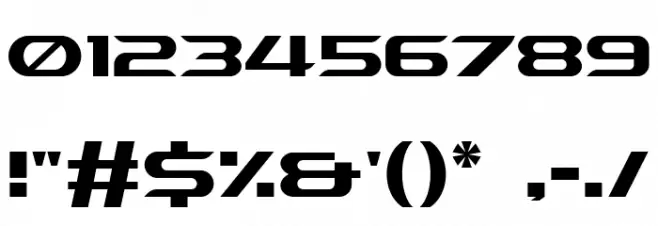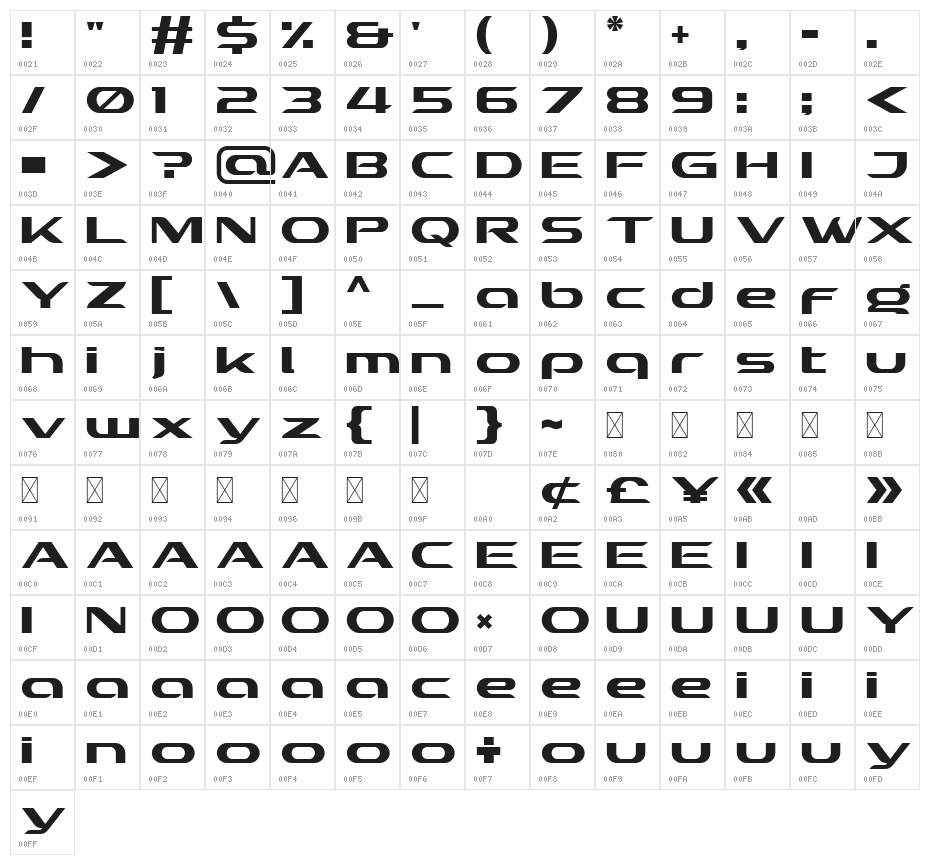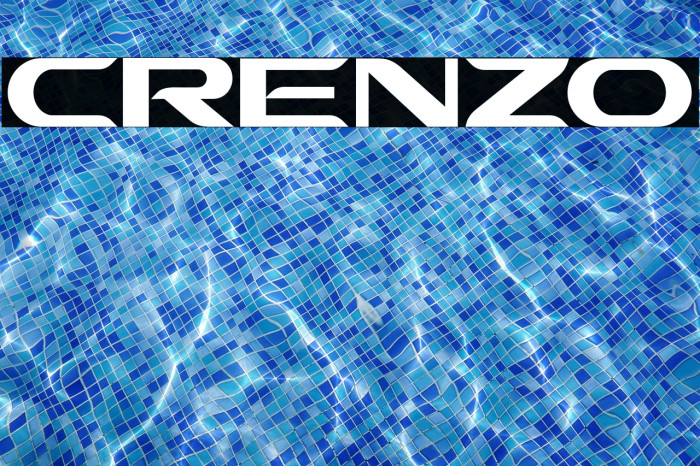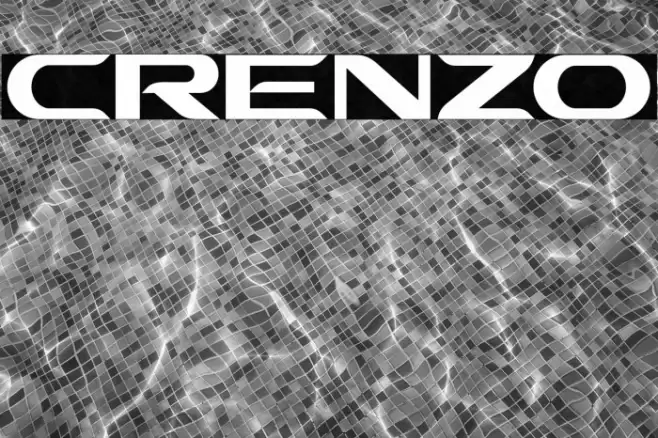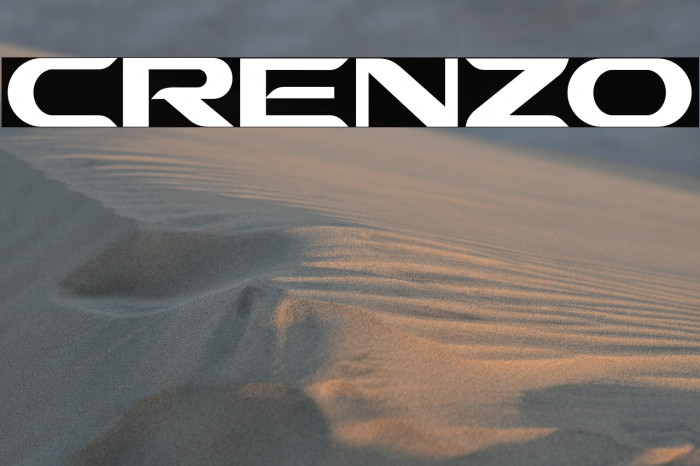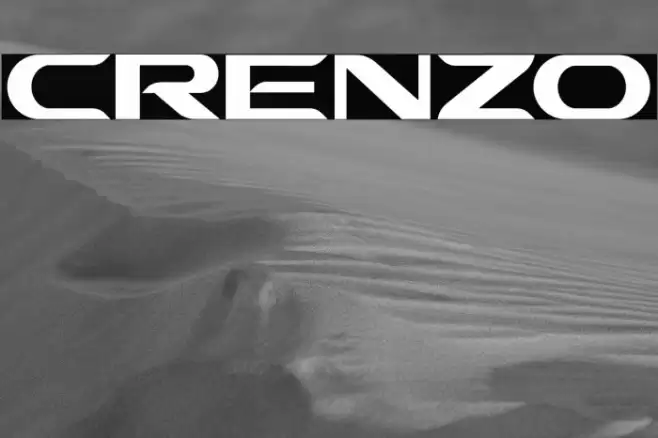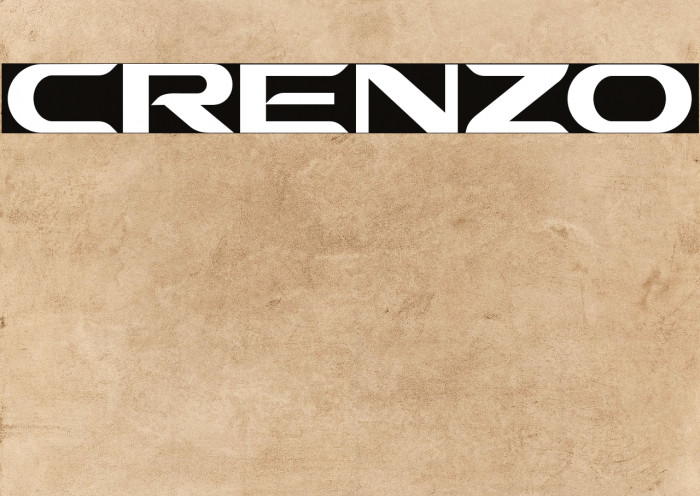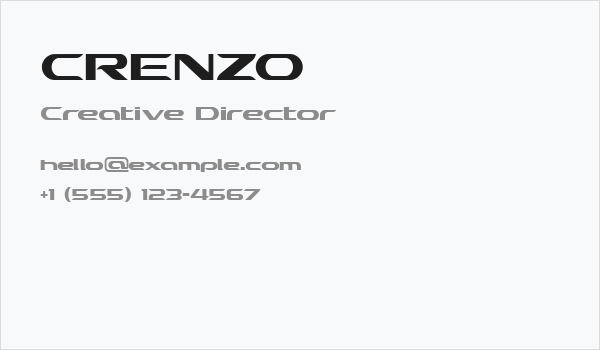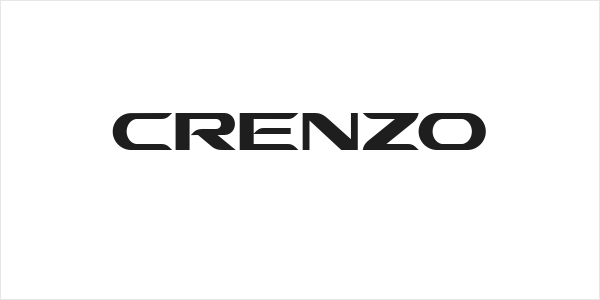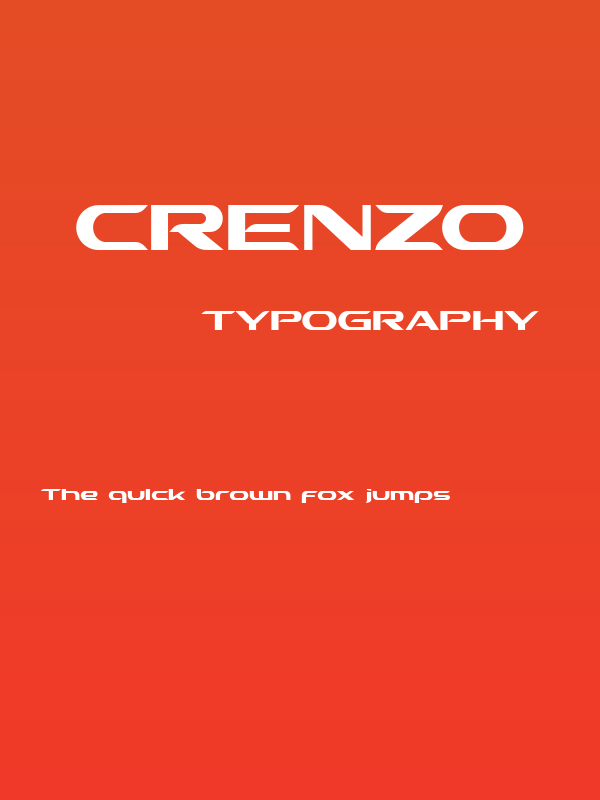
CRENZO Font
CRENZO Description
This font features a futuristic and geometric design, characterized by sharp angles and a bold presence. The uppercase letters are uniform in height, with a distinctive angular cut that gives them a sleek, modern appearance. The lowercase letters maintain the geometric style, with consistent stroke widths and unique character shapes that add a touch of innovation. The numerals are equally bold and angular, ensuring readability while maintaining the font's overall aesthetic. Special characters are designed to match the angular and bold style, making them suitable for various design contexts.
| Proposed Projects | Ideal for technology branding, sci-fi movie posters, video game titles, and modern logo designs. |